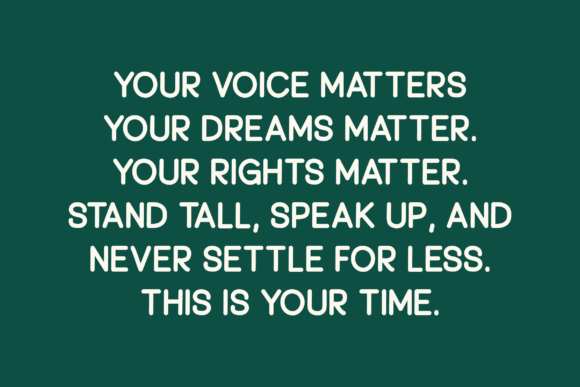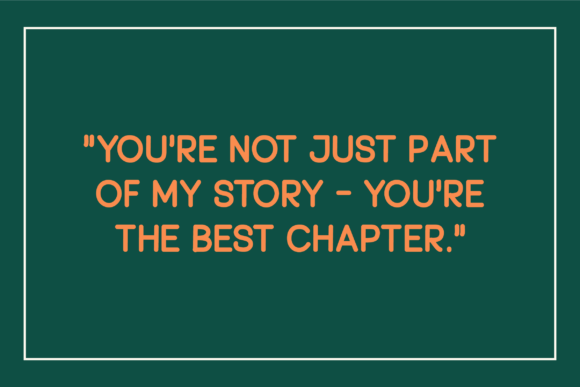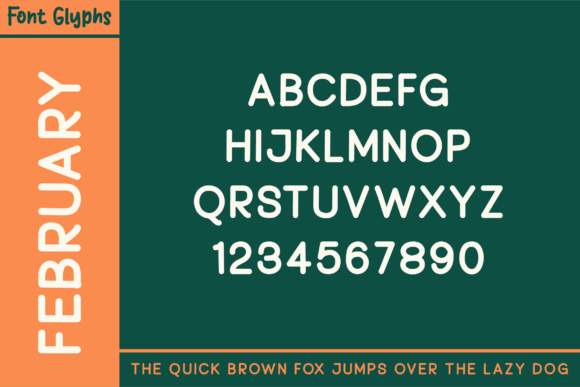
Introduction to Kumquat Font
Make an impact with Kumquat, a handwritten font that combines a strong, bold presence with a charming, personal touch.
Ideal for branding, packaging, social media, and print, its unique style adds warmth and authenticity to any design Achieve a professional yet approachable aesthetic with it.
Why Choose Kumquat Font?
Kumquat Font offers exceptional quality and versatility, making it a valuable addition to your design toolkit. Whether you’re creating for personal projects or commercial use, Kumquat Font delivers professional results.